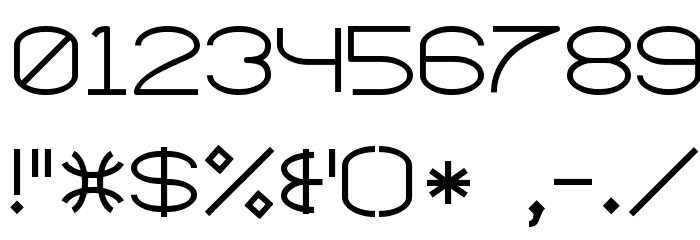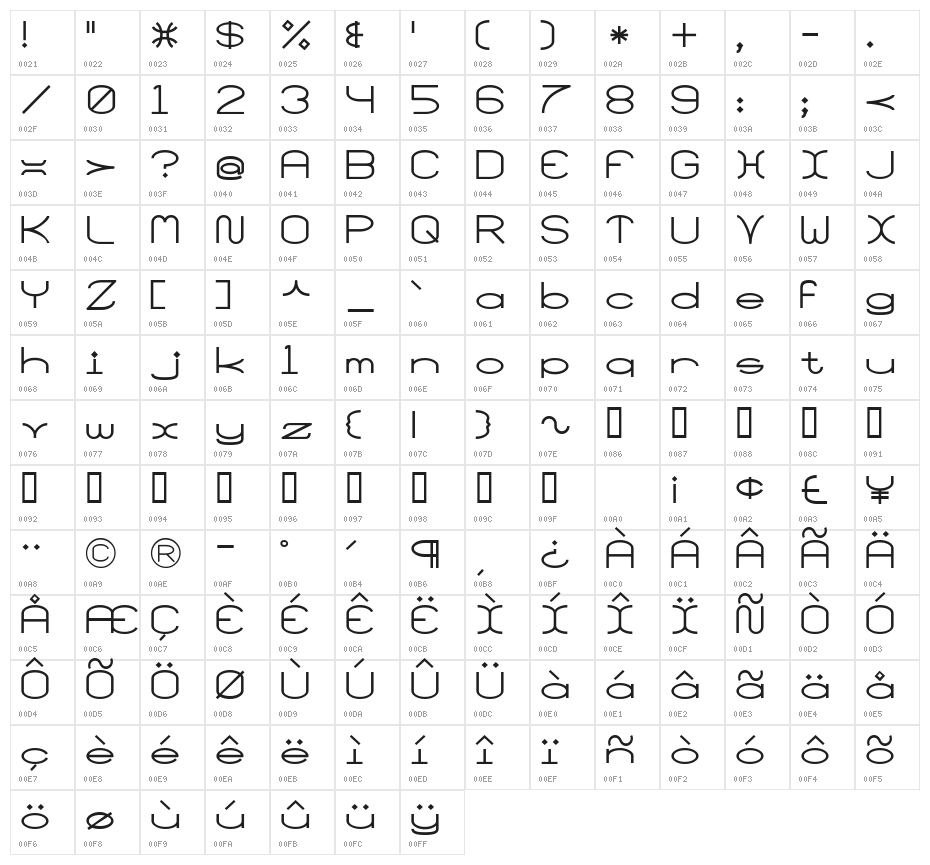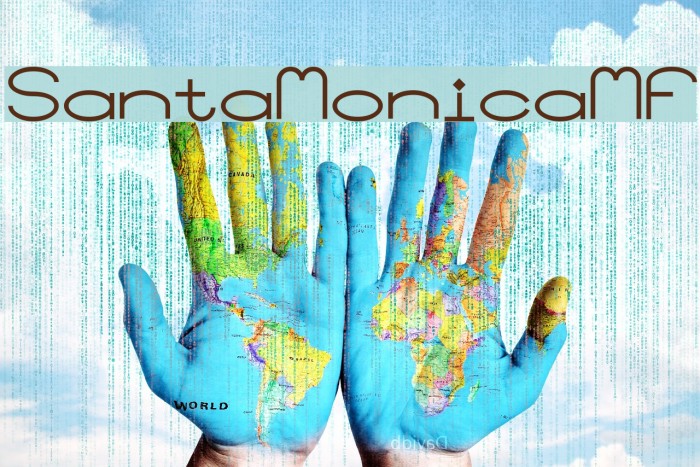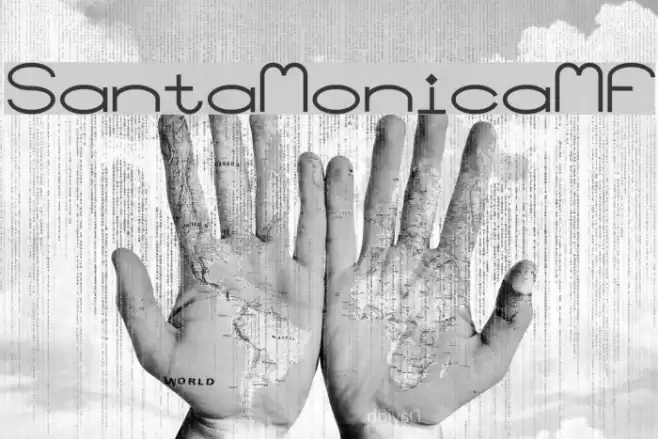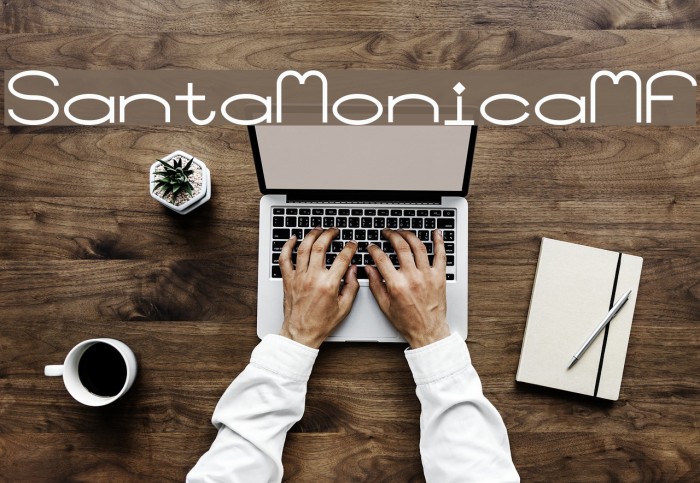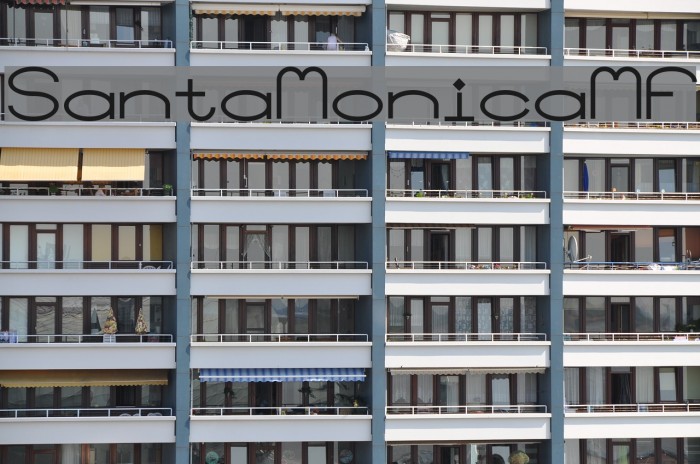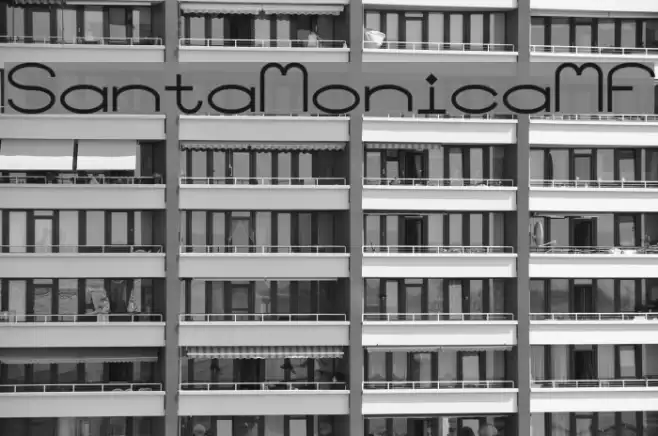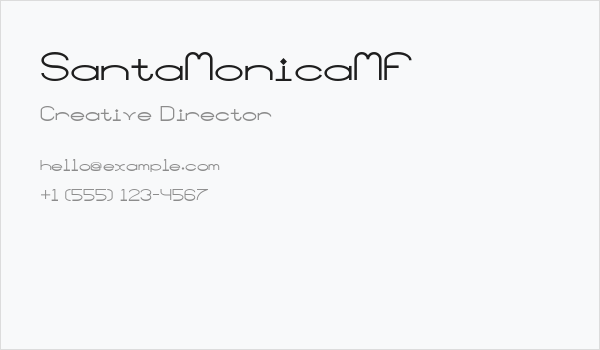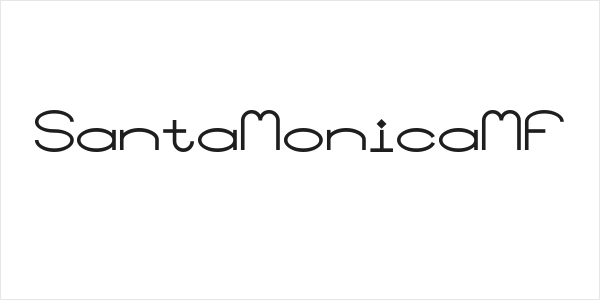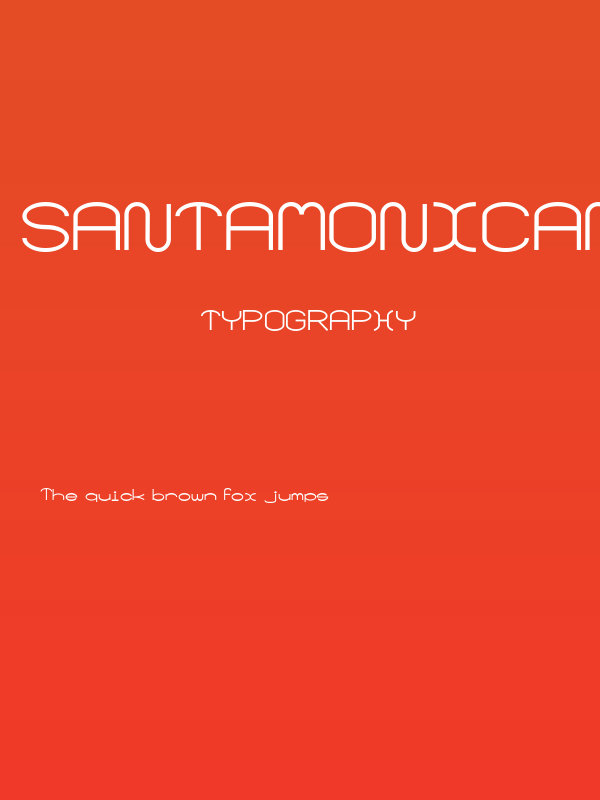
SantaMonicaMF Font
SantaMonicaMF Description
This font features a modern and geometric design with clean lines and a minimalist aesthetic. The characters are constructed with a consistent stroke width, giving it a uniform appearance. The uppercase letters are bold and structured, while the lowercase letters maintain a similar geometric style with slightly softer edges. The numerals are clear and easy to read, matching the overall style of the alphabet. Special characters are designed to complement the alphanumeric characters, maintaining the same geometric and modern feel. This font is ideal for projects that require a contemporary and sleek look.
| Use Case | Headlines, Logos, Digital Media |
| Proposed Projects | Ideal for branding, advertising, digital media, and modern web design. |